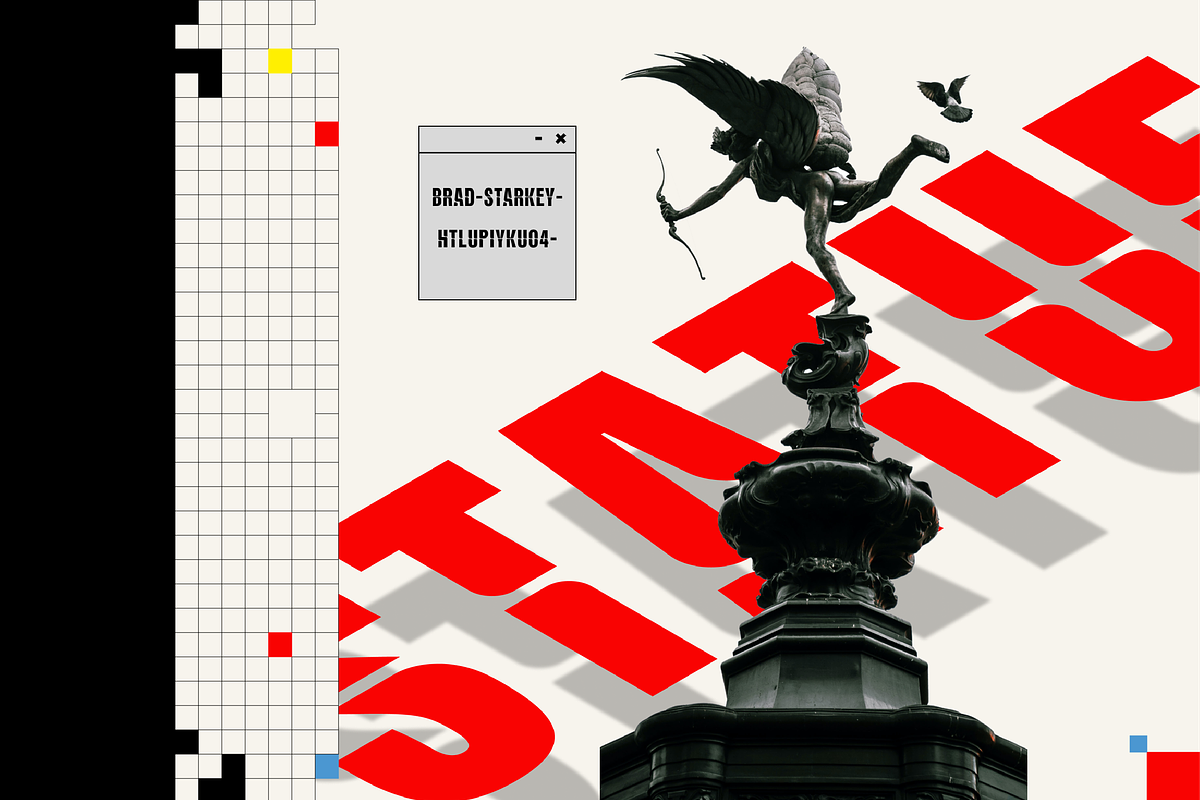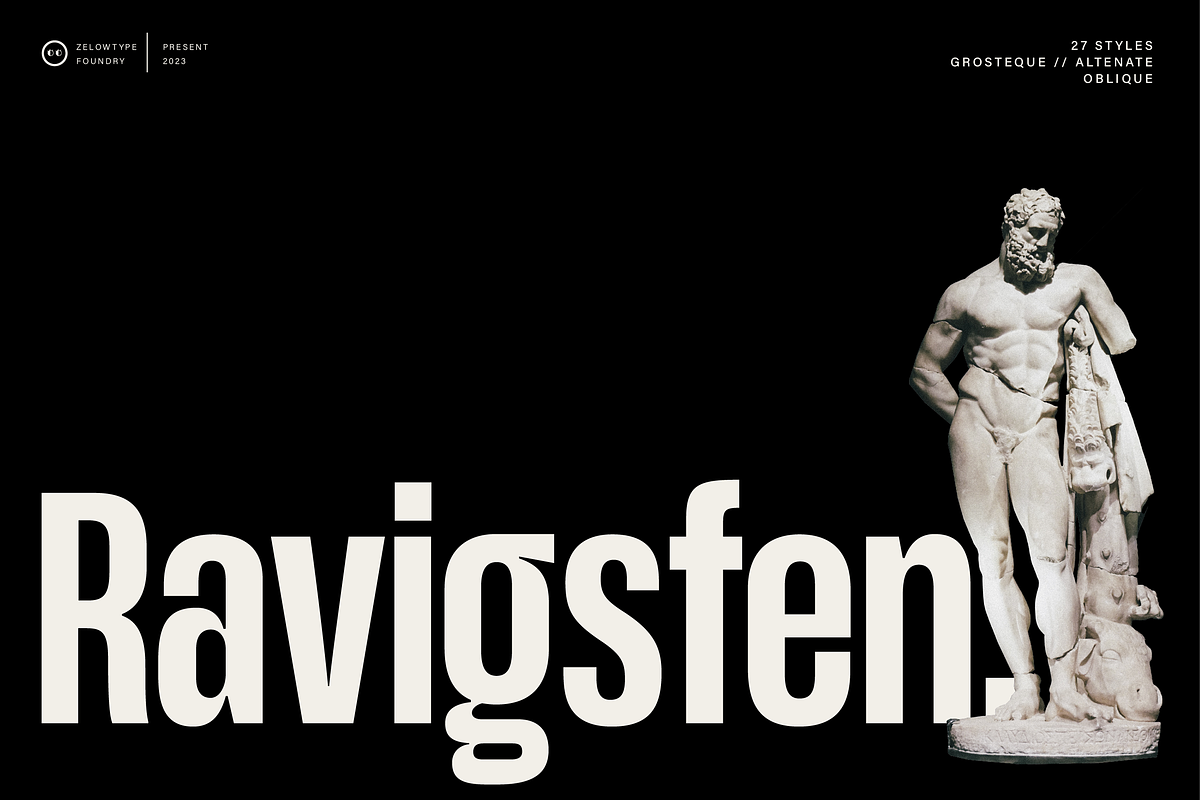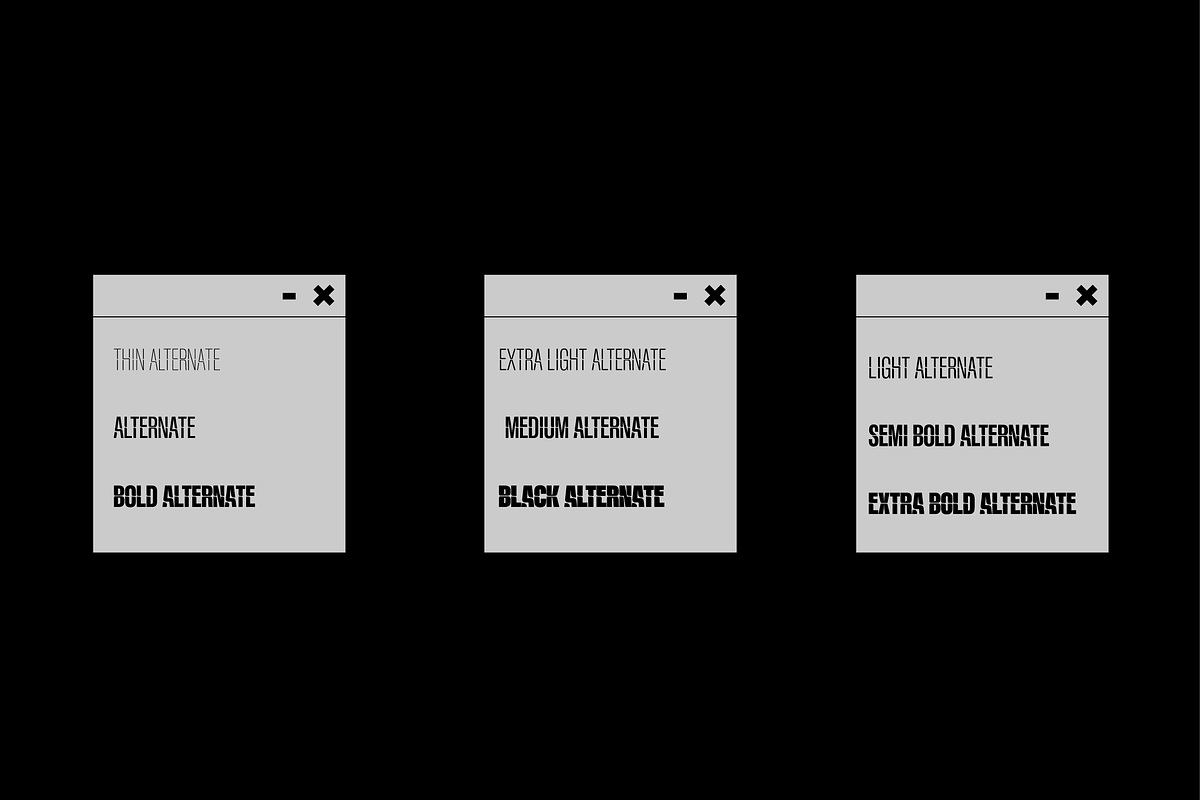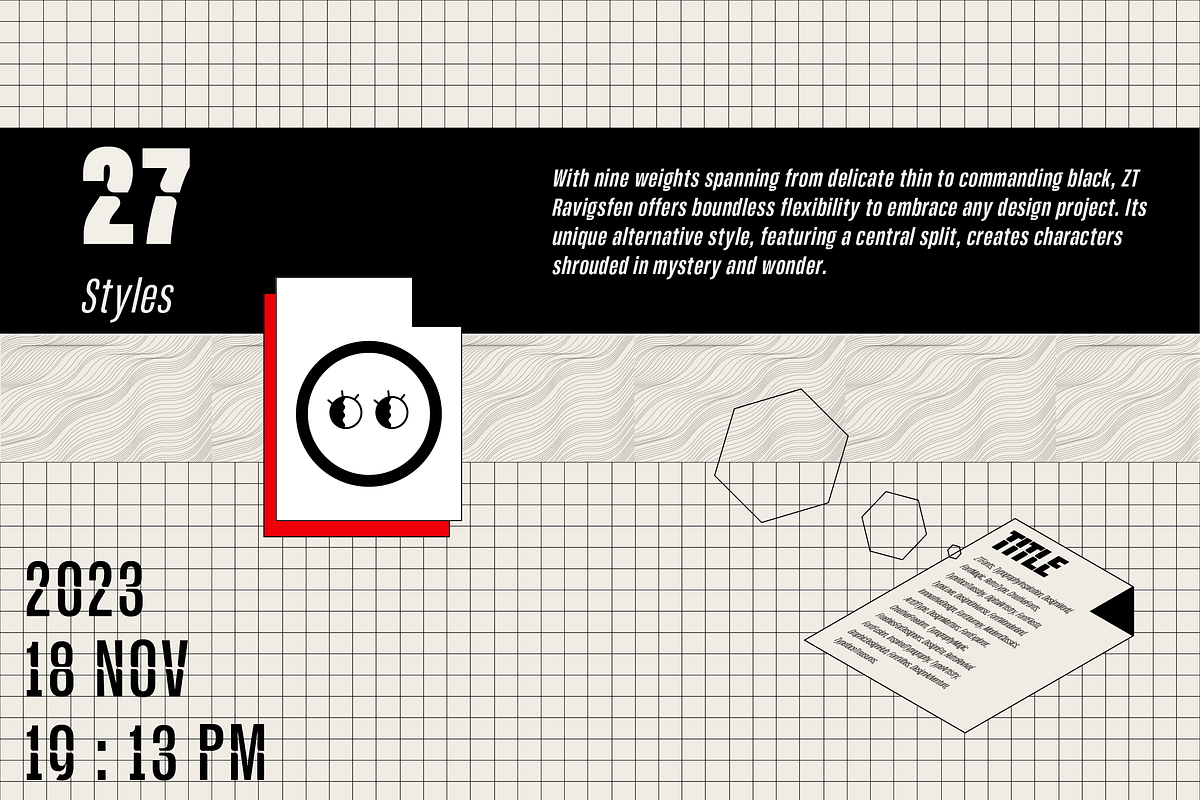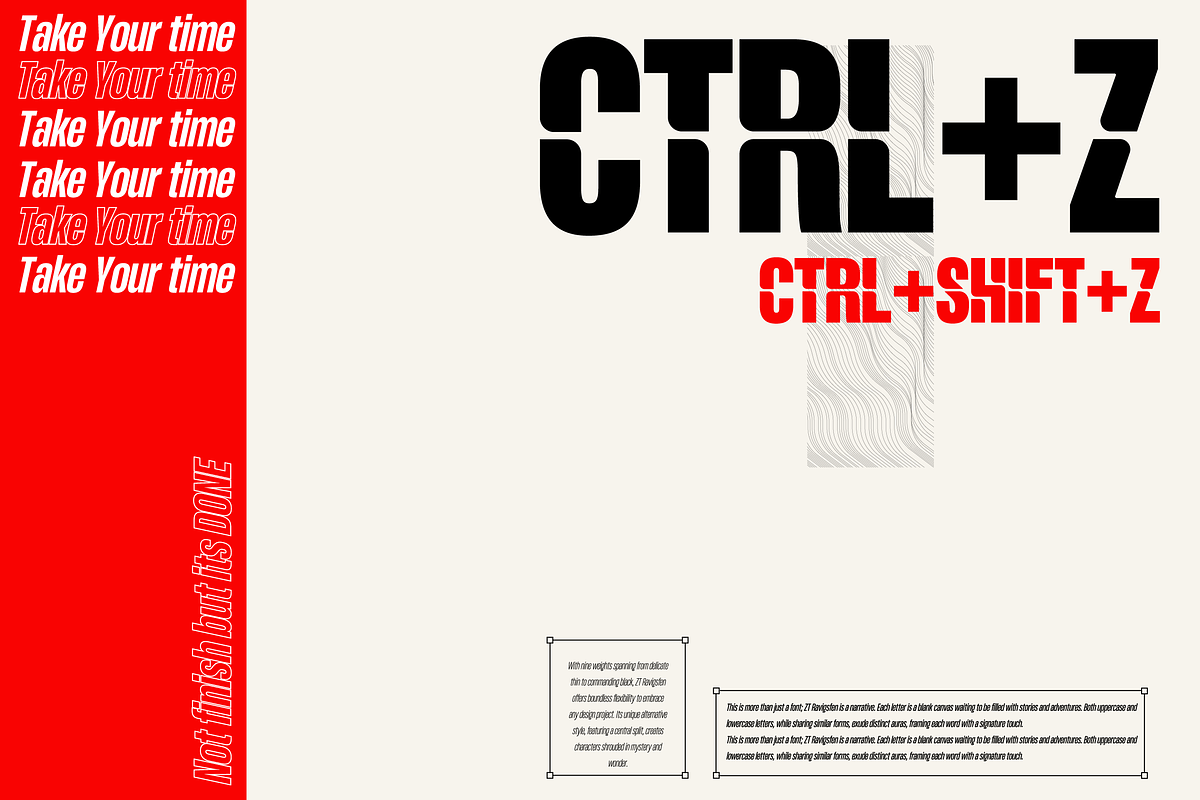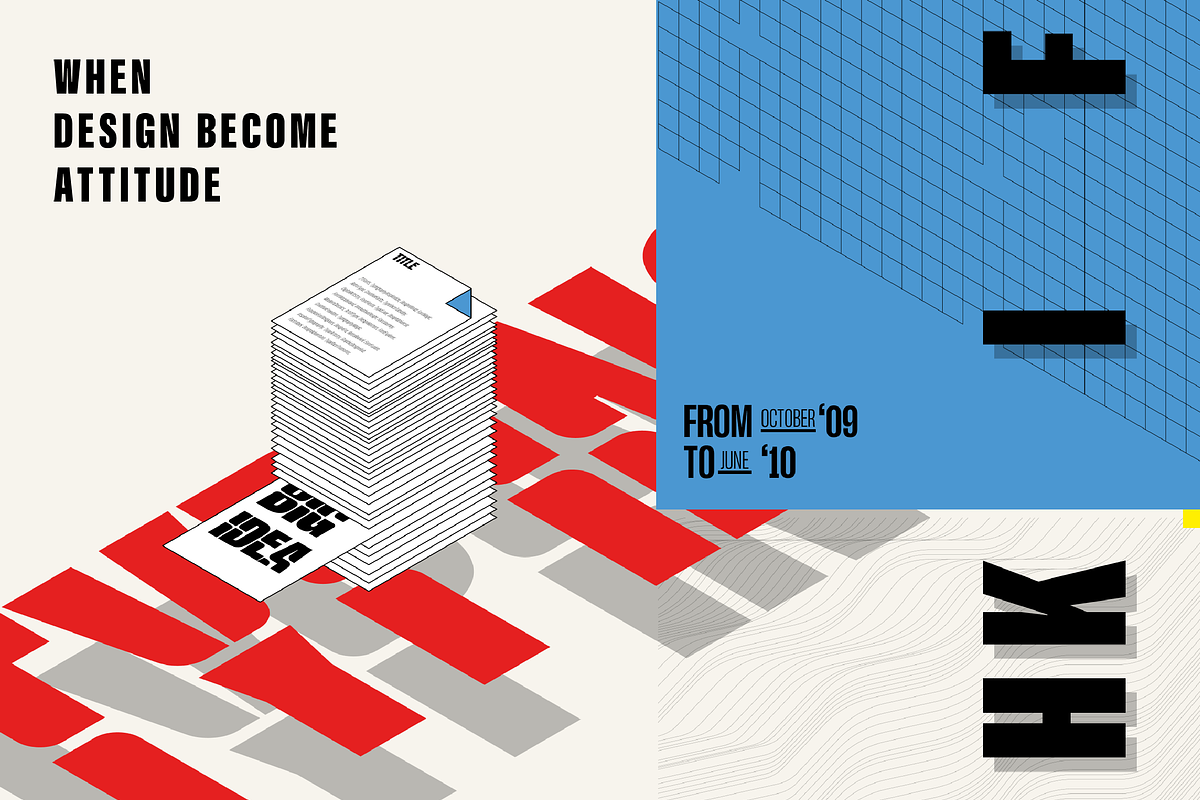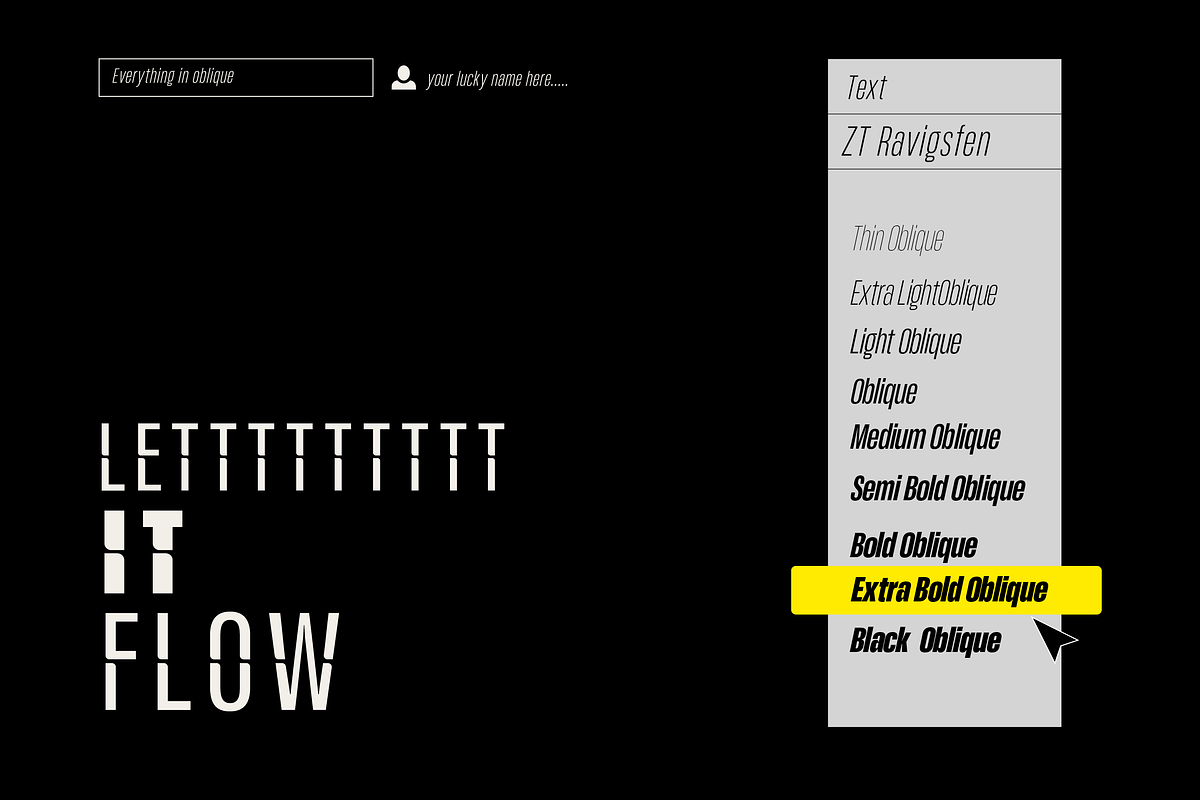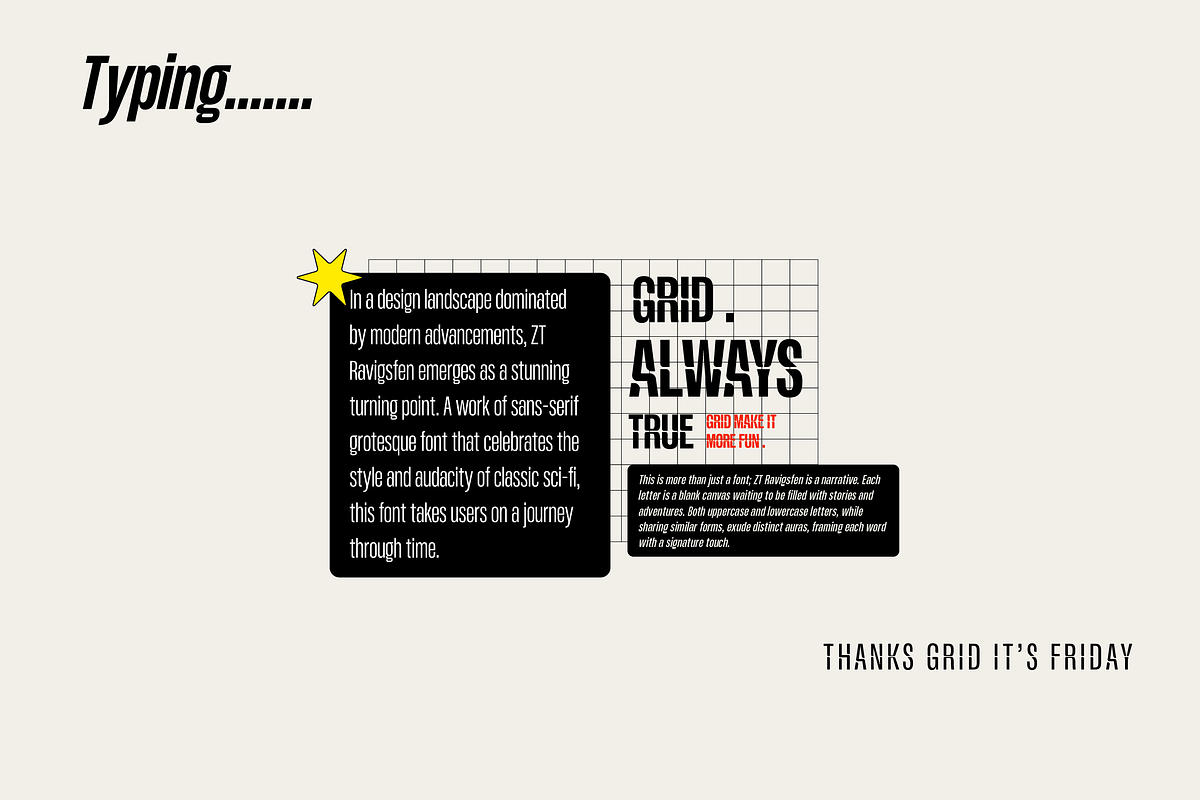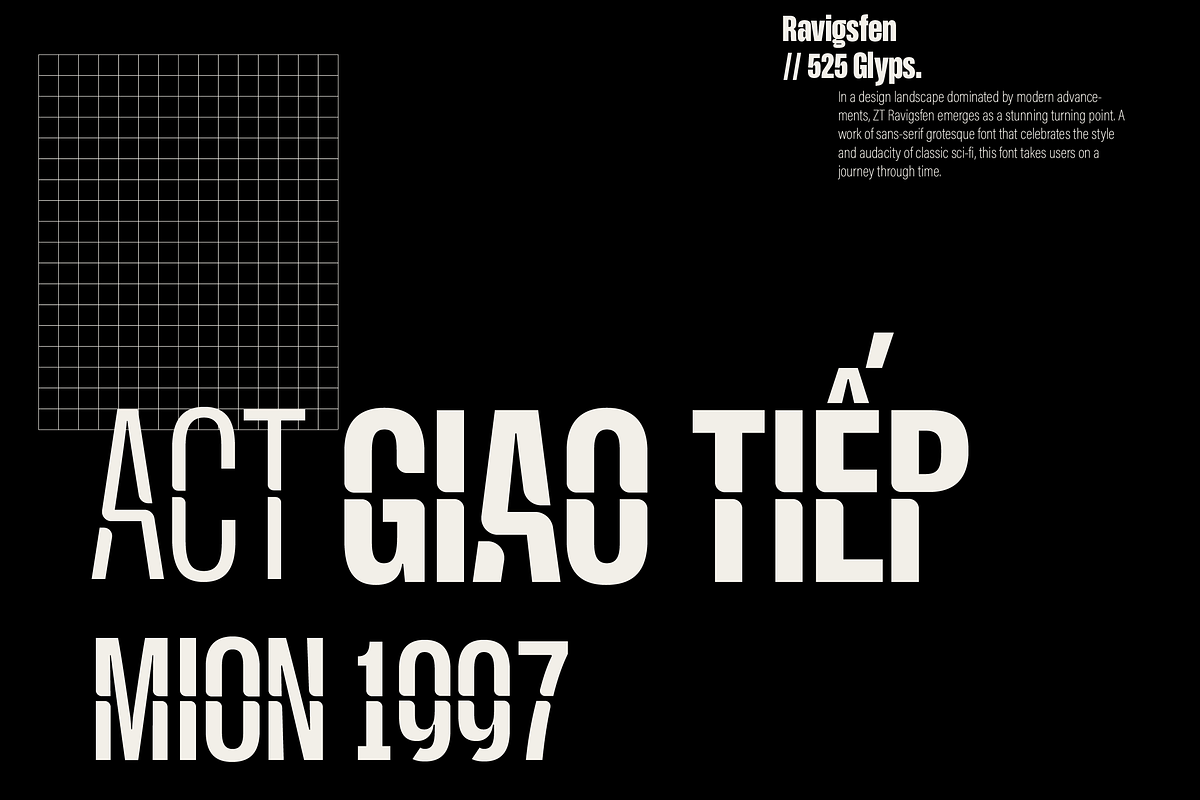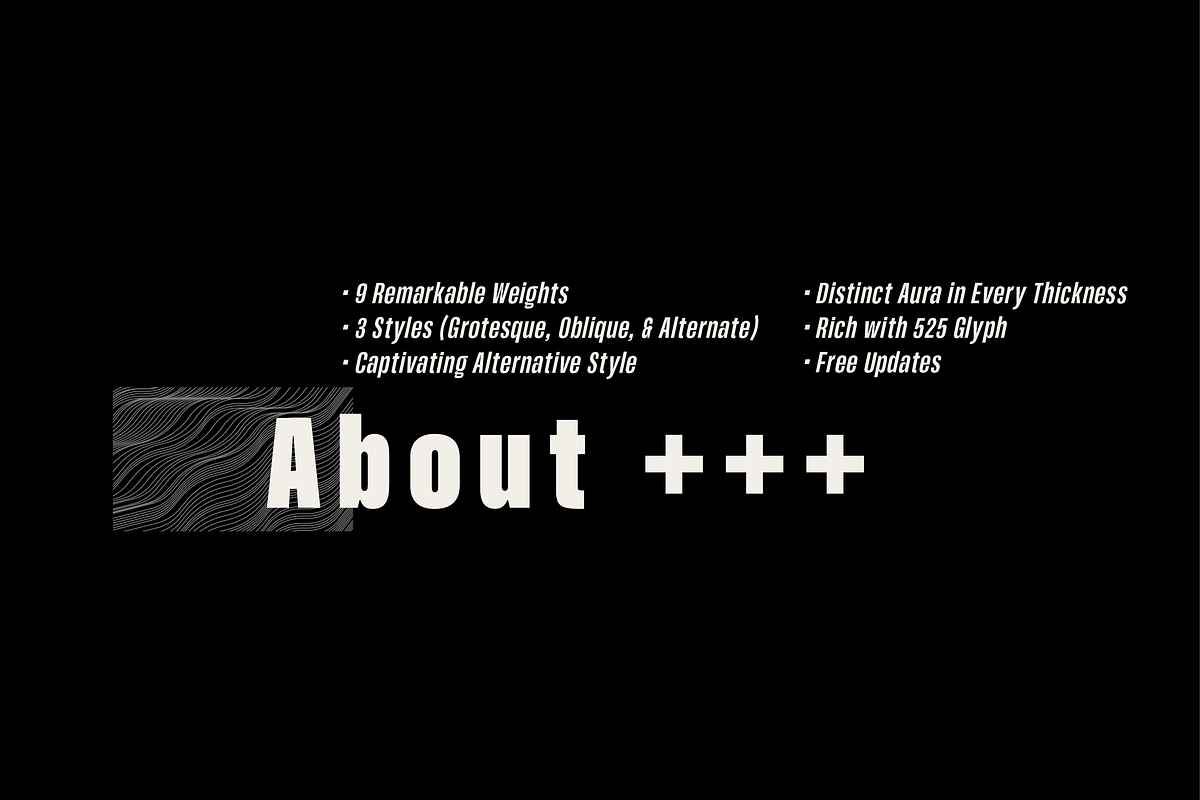
ZT Ravigsfen - Grosteque
In a design landscape dominated by modern advancements, ZT Ravigsfen emerges as a stunning turning point. A work of sans-serif grotesque font that celebrates the style and audacity of classic sci-fi, this font takes users on a journey through time.
With nine weights spanning from delicate thin to commanding black, ZT Ravigsfen offers boundless flexibility to embrace any design project. Its unique alternative style, featuring a central split, creates characters shrouded in mystery and wonder.
This is more than just a font; ZT Ravigsfen is a narrative. Each letter is a blank canvas waiting to be filled with stories and adventures. Both uppercase and lowercase letters, while sharing similar forms, exude distinct auras, framing each word with a signature touch.
ZT Ravigsfen Key Features:
- 9 Remarkable Weights
- 3 Styles (Grotesque, Oblique, & Alternate)
- Captivating Alternative Style
- Distinct Aura in Every Thickness
- Rich with 525 Glyph